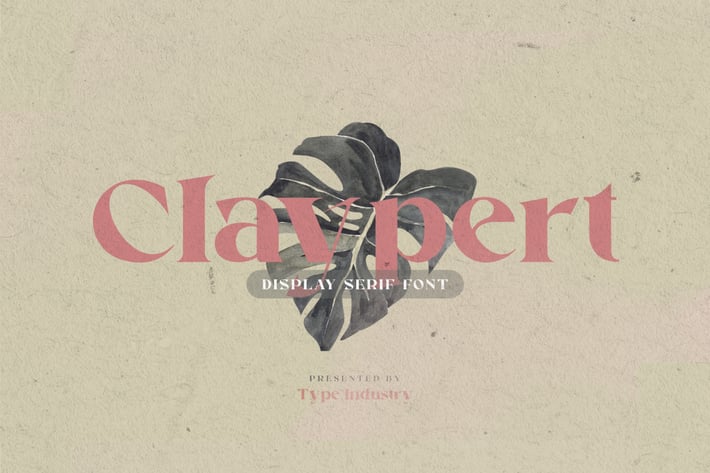
Claypert - Logo Font
Type Industry presents Claypert Display Font, it's a beautiful display font which is inspired by elegant shape and beauty. This font has approximately 256 glyphs characters including uppercase, lowercase number, punctuation and alternatives. Make the beautiful impression of this font stand out more. It is suitable for creating beautiful designs such as logo posters, magazine, brochures, business cards and others.
- Numbers
- Punctuations
- Stylistic Alternates & Ligatures
- Multilingual Languages Supported